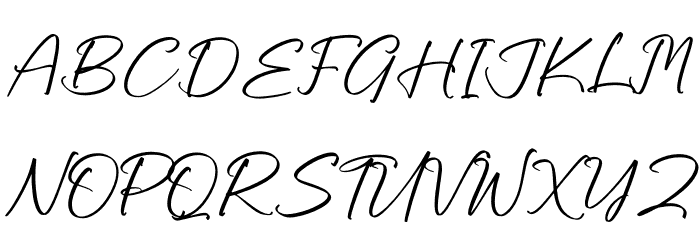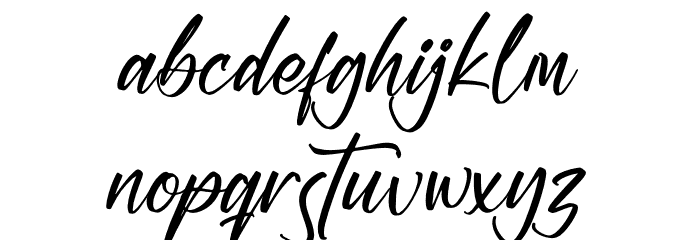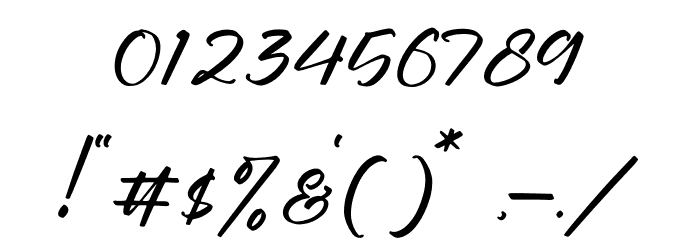
Dickerson Gatory Font
This font exudes a dynamic and fluid style, characterized by its elegant cursive script. The uppercase letters are gracefully elongated, while the lowercase letters maintain a consistent flow, creating a harmonious balance. The numerals and special characters are crafted with the same attention to detail, ensuring a cohesive look across all elements. The strokes vary in thickness, adding a touch of sophistication and enhancing readability. This font is perfect for projects that require a personal and artistic touch, making it ideal for invitations, branding, and creative designs.
A dynamic and fluid cursive script with elegant, elongated strokes.
- Font: Dickerson Gatory
- Proposed Projects: Ideal for wedding invitations, branding, logos, and artistic designs.
- Category: Script
- Overall Style: Elegant and Artistic
- Use Case: Logos, Invitations, Artistic Designs